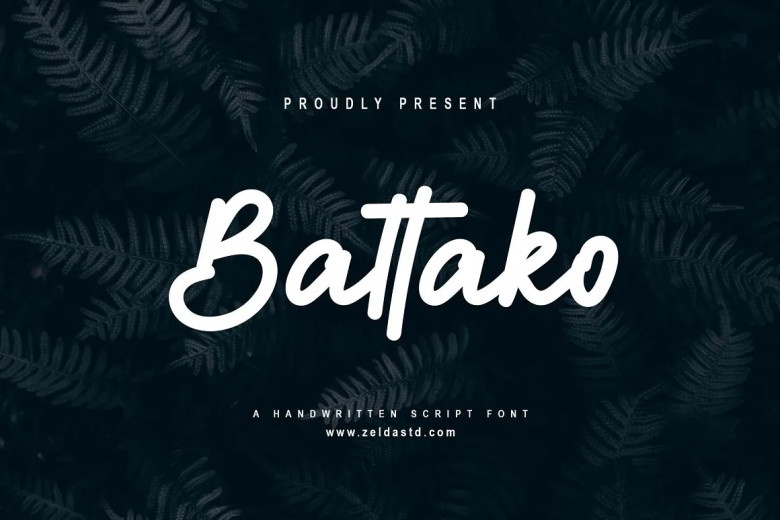
Battako is a handwritten display font with a strikingly authentic feel font is our new item that is suitable for your Posters. Great for Logo, Poster, Sticker, Jerseys, Invitation Cards, Brochure, etc.
Battako Handwritten Script Font